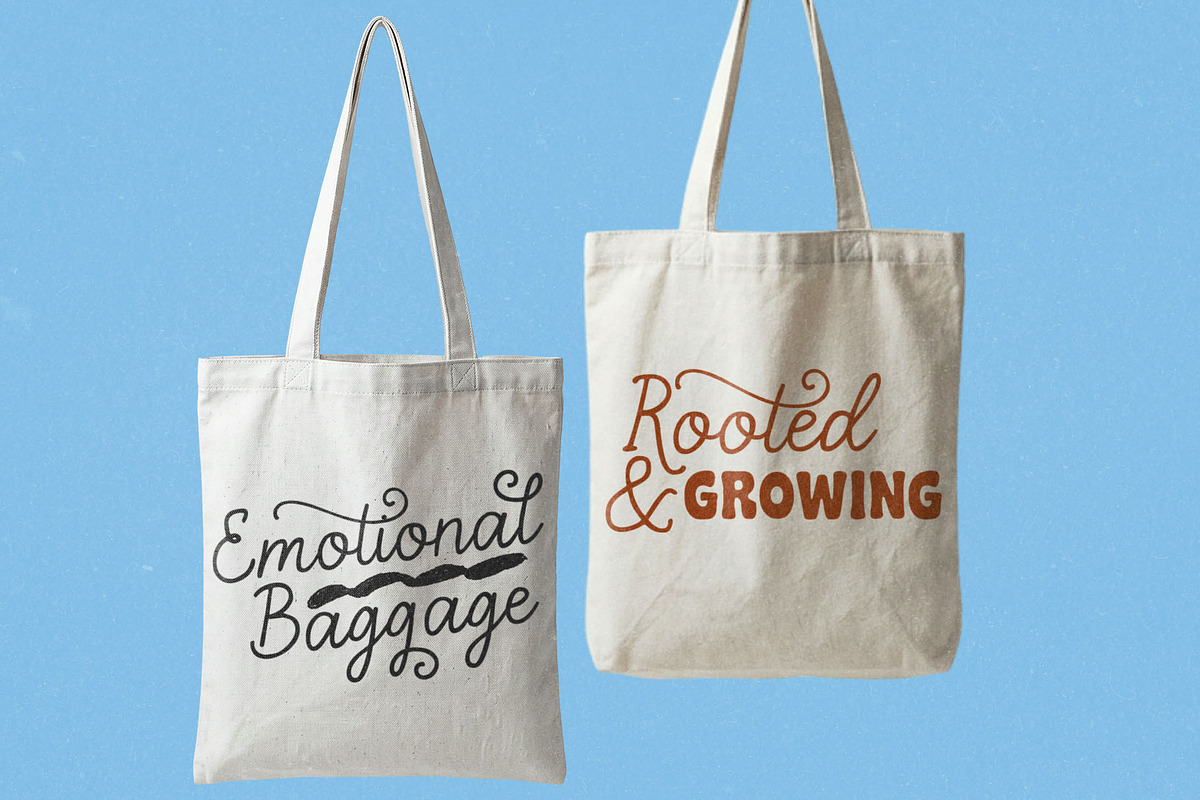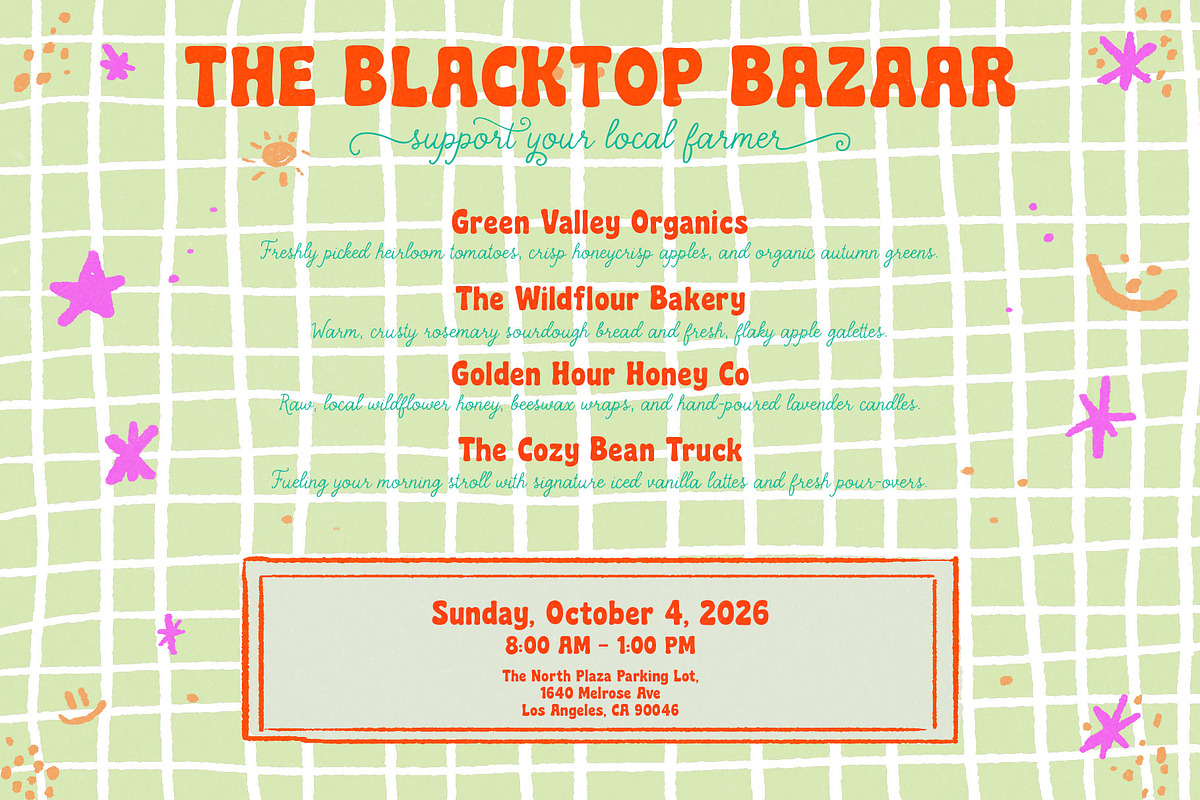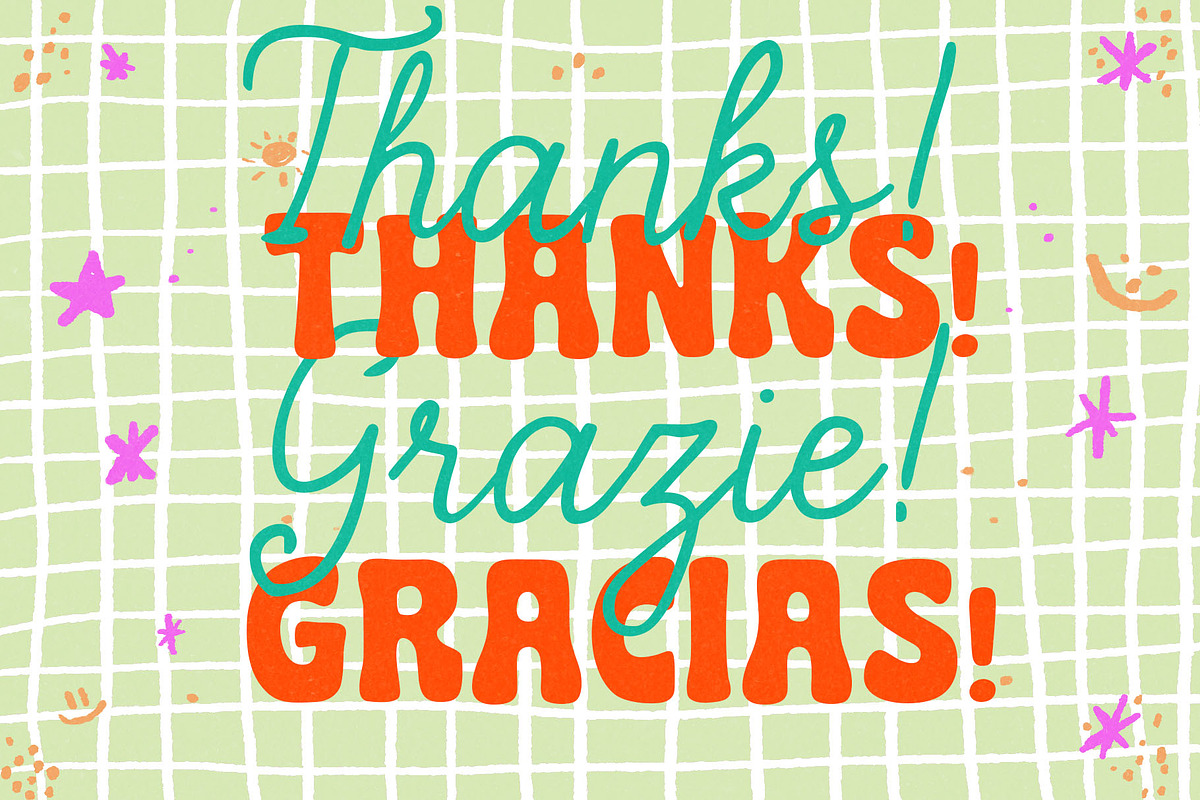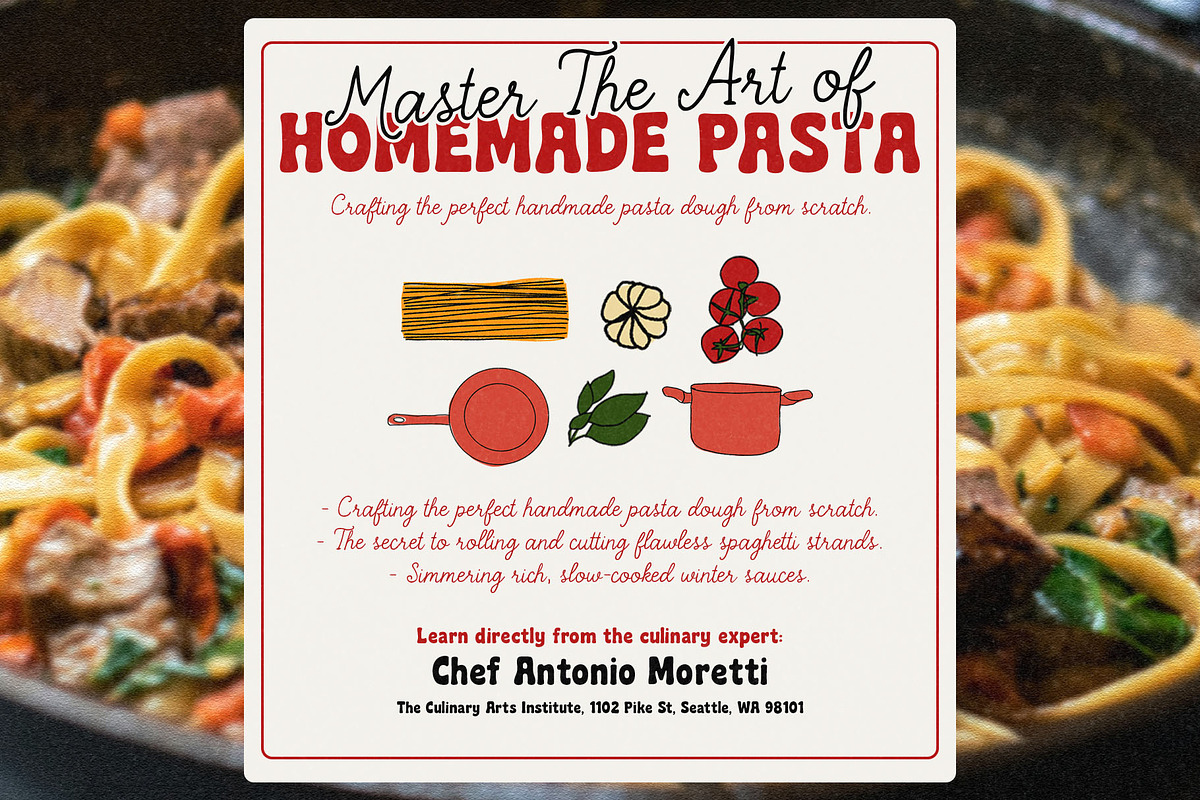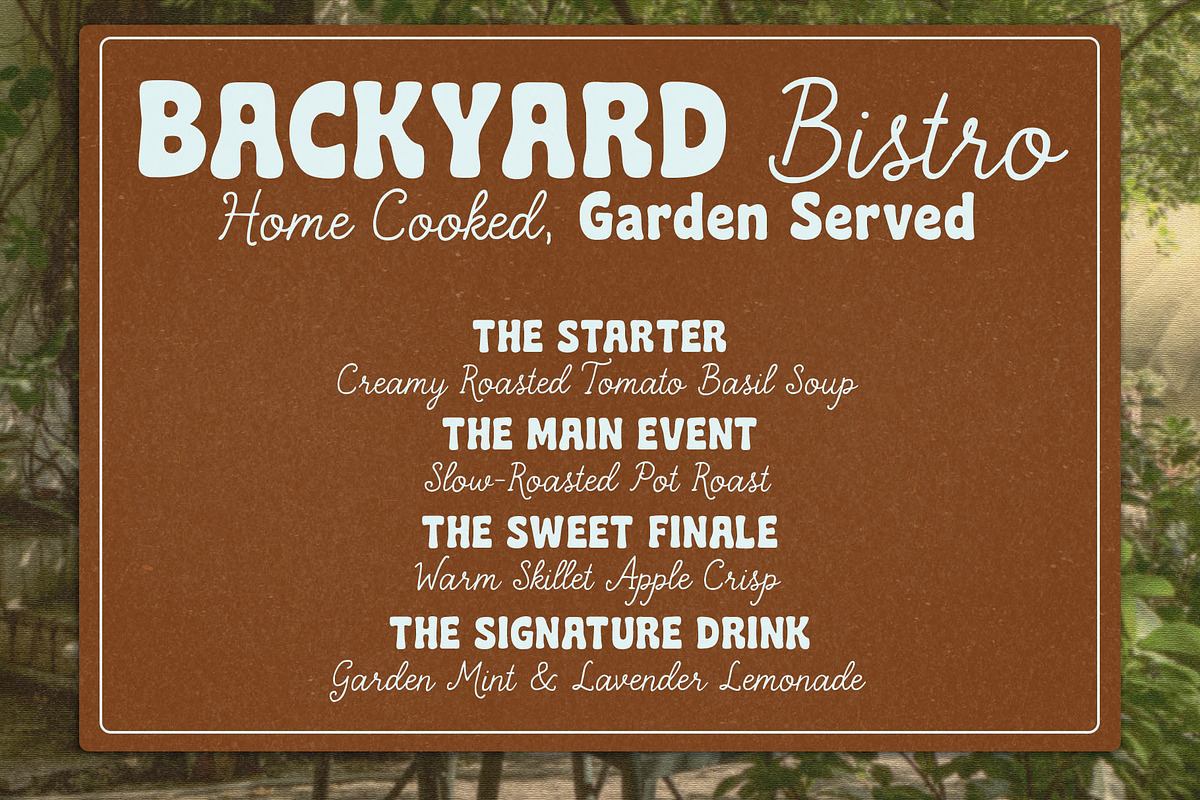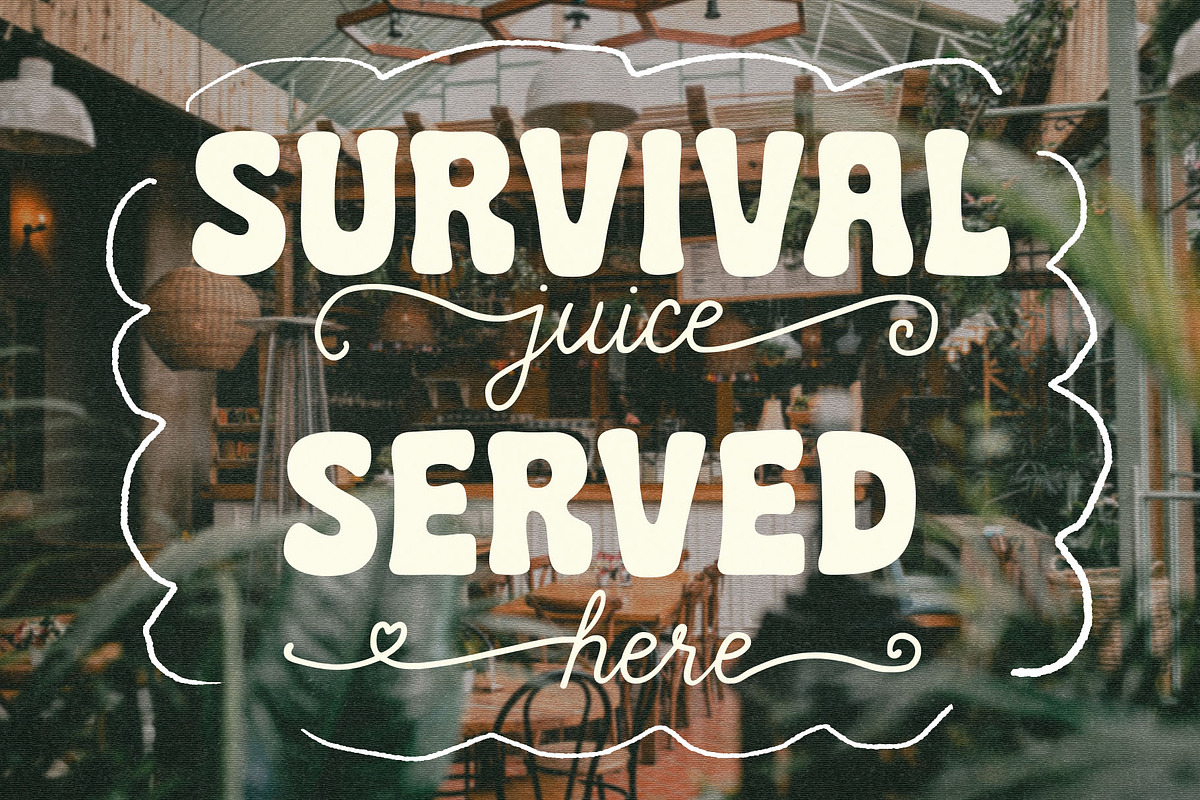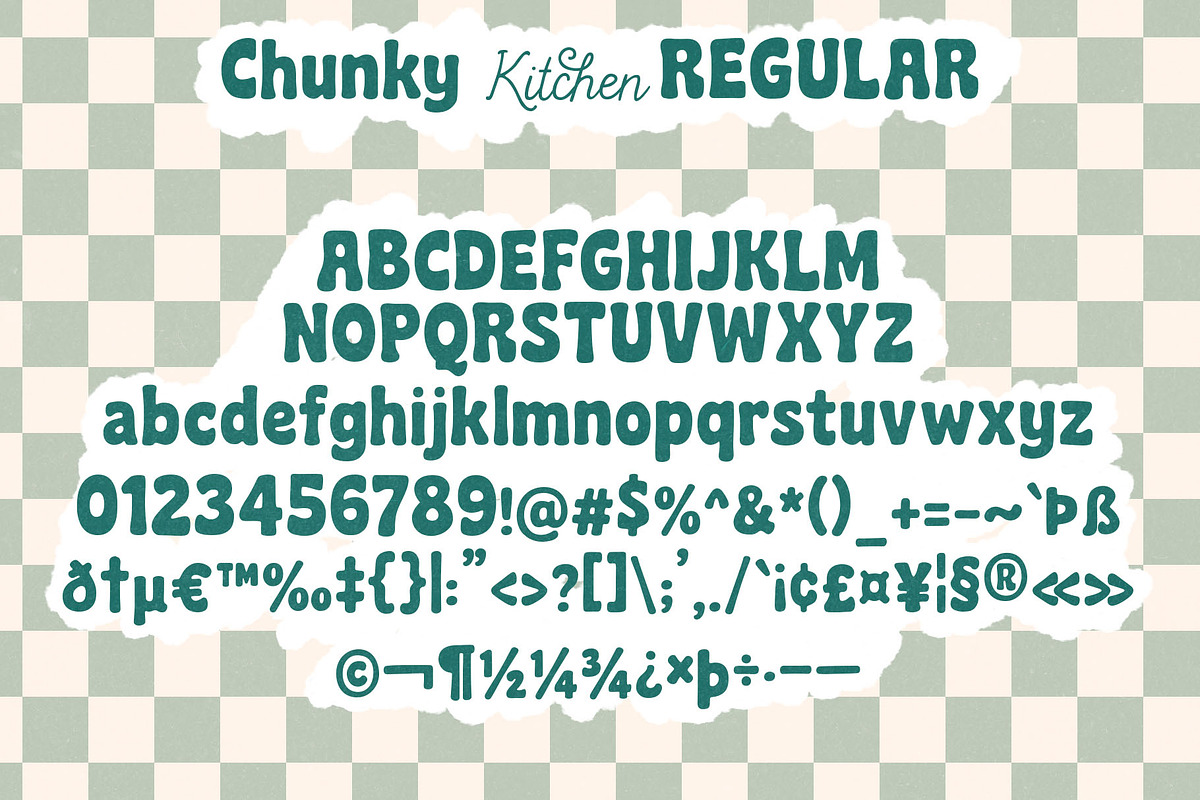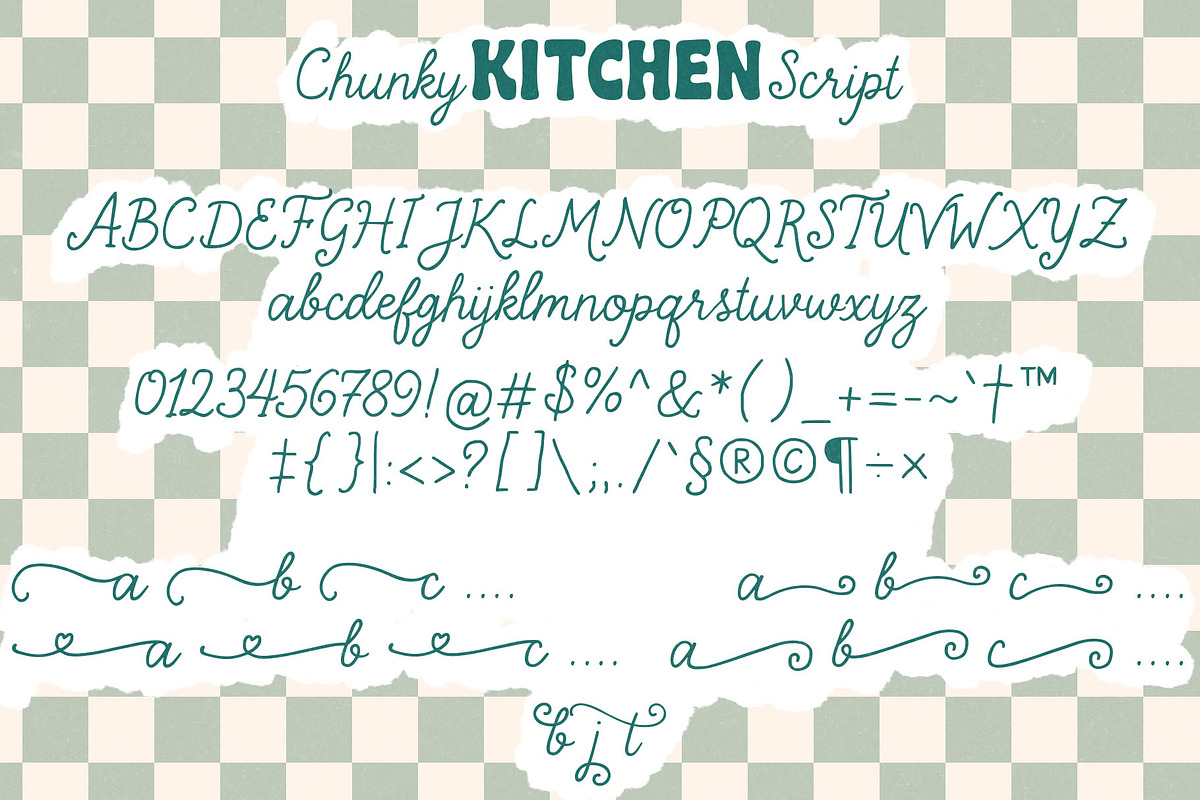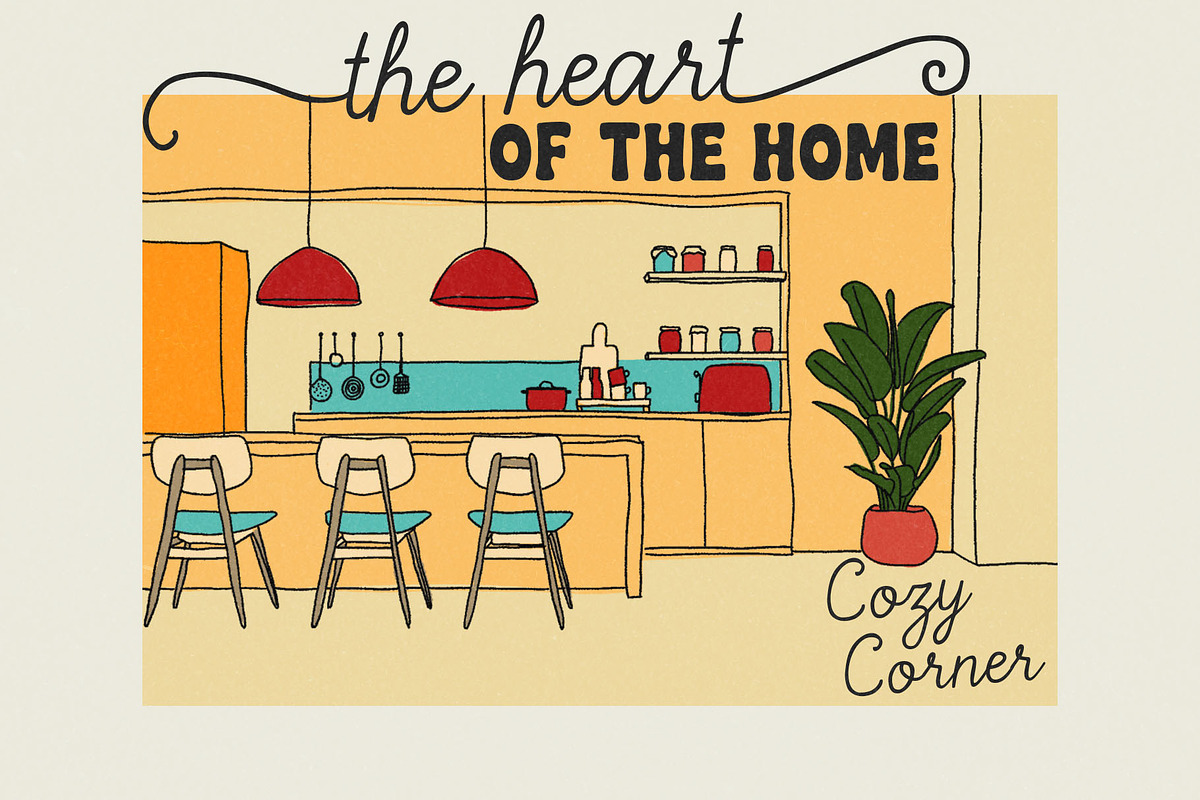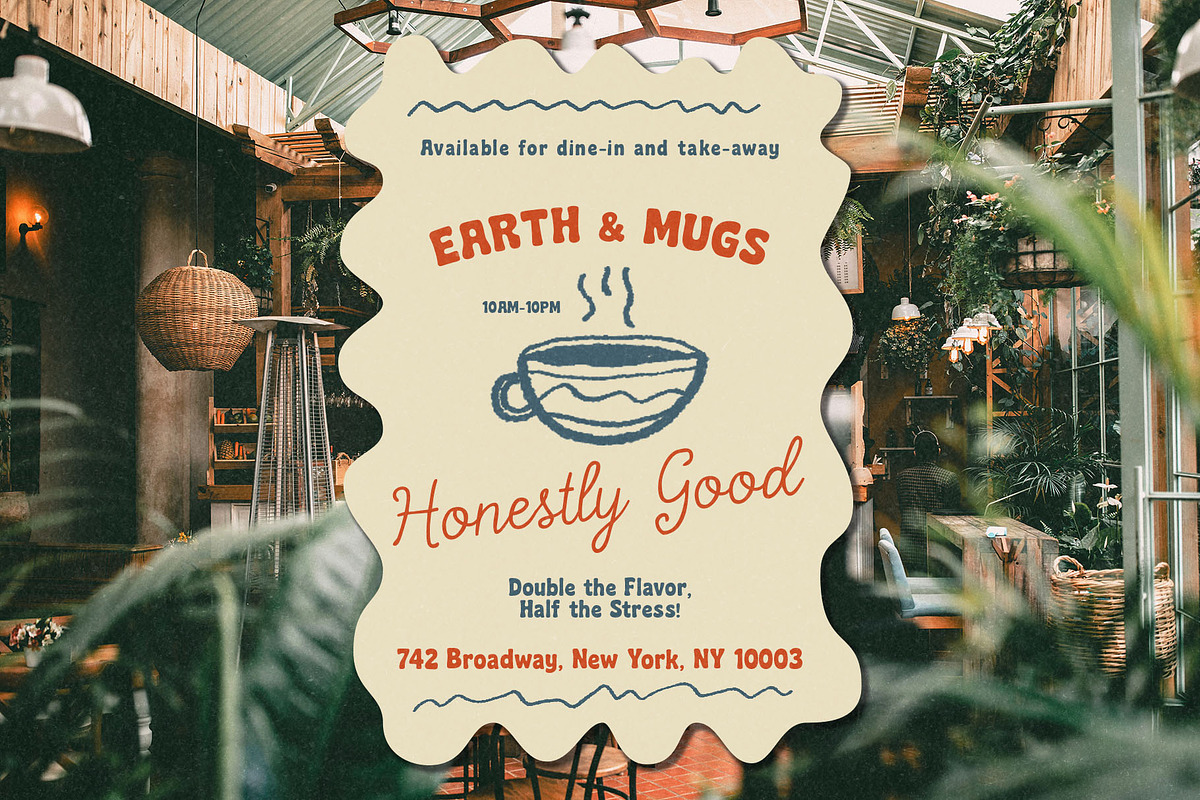
Chunky Kitchen Font Duo
Introducing Chunky Kitchen, a delightful and expressive font duo that perfectly blends a bold, chunky retro display font with a warm, flowing handwritten cursive script. Inspired by the cozy, cheerful vibe of vintage kitchens and homemade recipes, this duo brings instant personality, warmth, and "handmade goodness" to your creative projects.
The magic lies in the contrast: the bold display font grabs attention with its solid, playful presence, while the cursive script adds an organic, personal touch. Even better, Chunky Kitchen script font is packed with OpenType features, including Stylistic Sets 01-05 (SS01 - SS05), giving you access to beautiful alternate characters to make your lettering look truly custom and dynamic.
🎨 Perfect For:
Food & Beverage Branding: Logos for cafes, bakeries, restaurants, food trucks, and organic product packaging.
Product Packaging & Labels: Snack packs, sauce bottles, jam jars, coffee bags, and candle labels.
Merchandise Design: Eye-catching t-shirts, tote bags, aprons, mugs, and stickers.
Editorial & Print: Cookbook covers, recipe cards, greeting cards, casual invitations, and posters.
Social Media & Marketing: Playful Instagram posts, Pinterest graphics, YouTube thumbnails, and quote illustrations.